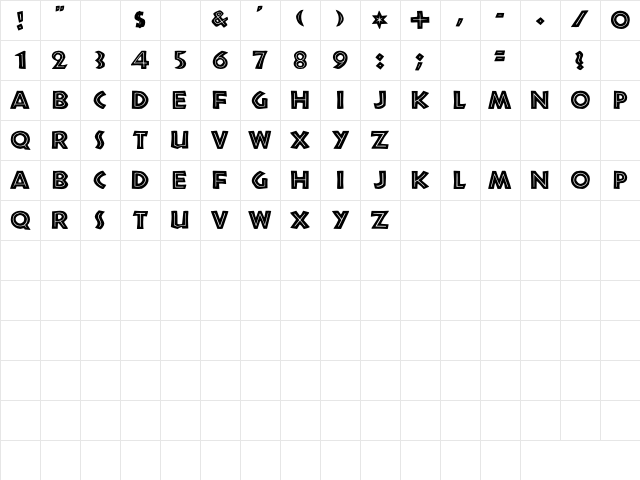
LHF Lincoln Regular
Foundry: Chuck Davis for Letterhead Fonts
Designer: Chuck Davis for Letterhead Fonts
Design Context for LHF Lincoln
LHF Lincoln is a composed and adaptable typeface that performs quietly and consistently across a wide range of design contexts.